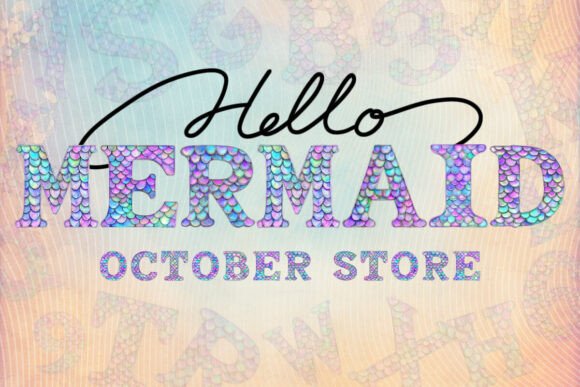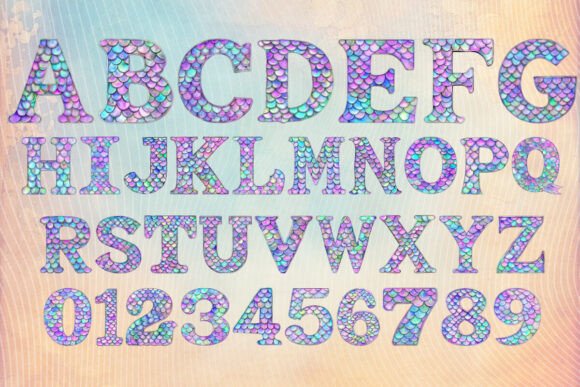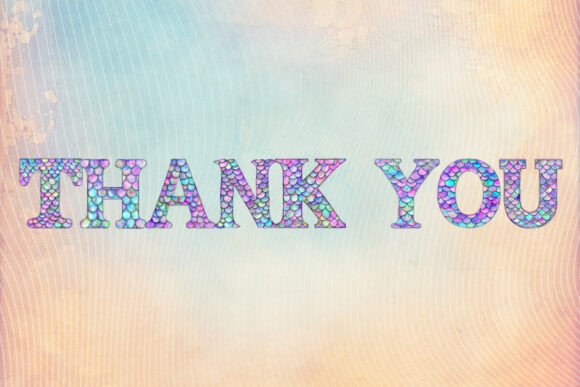
Mermaid Font
Discover the enchantment of the Mermaid Alphabet font. This whimsical typography brings with it a set of 36 adorable characters, including letters and numbers. Known for its unique style reminiscent of fairy tales and undersea adventures, this font captures the whimsy and charm of mermaid lore. Whether you’re creating a special invitation, adding flair to a project, or wanting to give your design a refreshing touch, the Mermaid Alphabet is the perfect choice. Immerse yourself in the magic of typography with this cute and captivating font set.